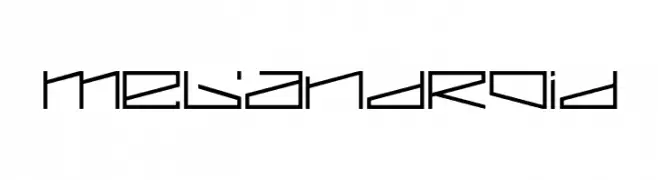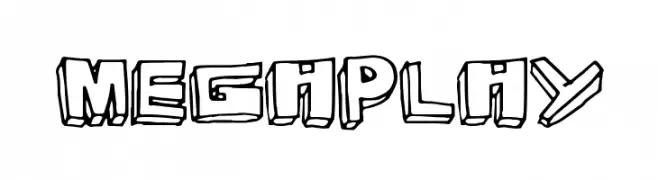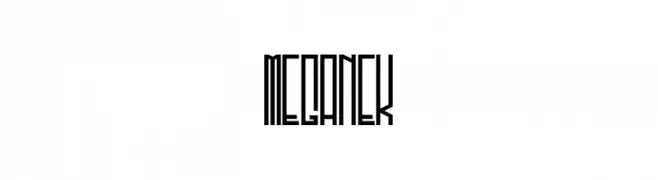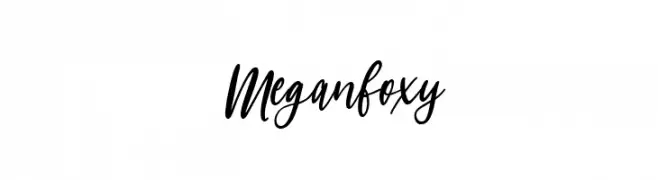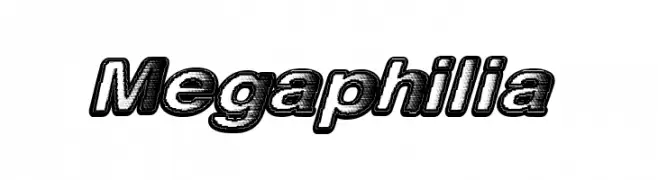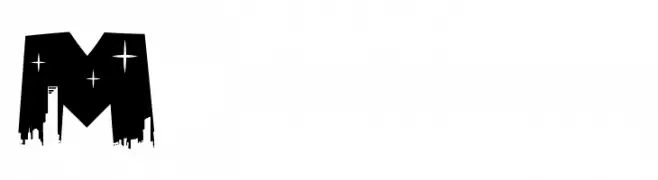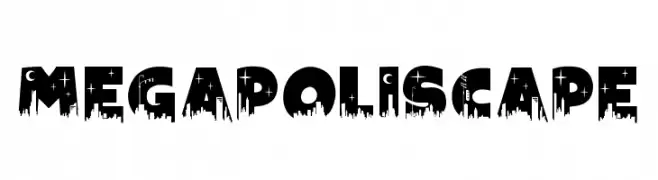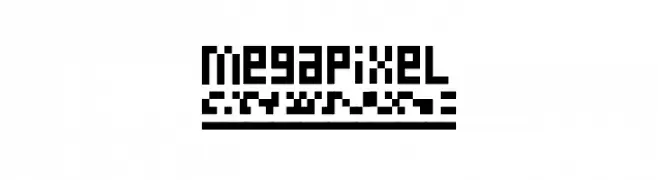
A futuristic, angular font with a geometric and modern design.
A geometric, condensed font with uniform stroke widths and a modern, architectural style.
Elegant handwritten script font.
A bold, italicized font with a 3D outline and shadow effect.
A bold, geometric font with a blocky, digital-inspired design.
A bold, playful, and cartoonish font with a three-dimensional, hand-drawn style.
A bold, angular font with geometric shapes and strong visual impact.
A bold, urban-style font with a dripping cityscape effect.
A bold, cityscape-themed font with high contrast and dramatic style.